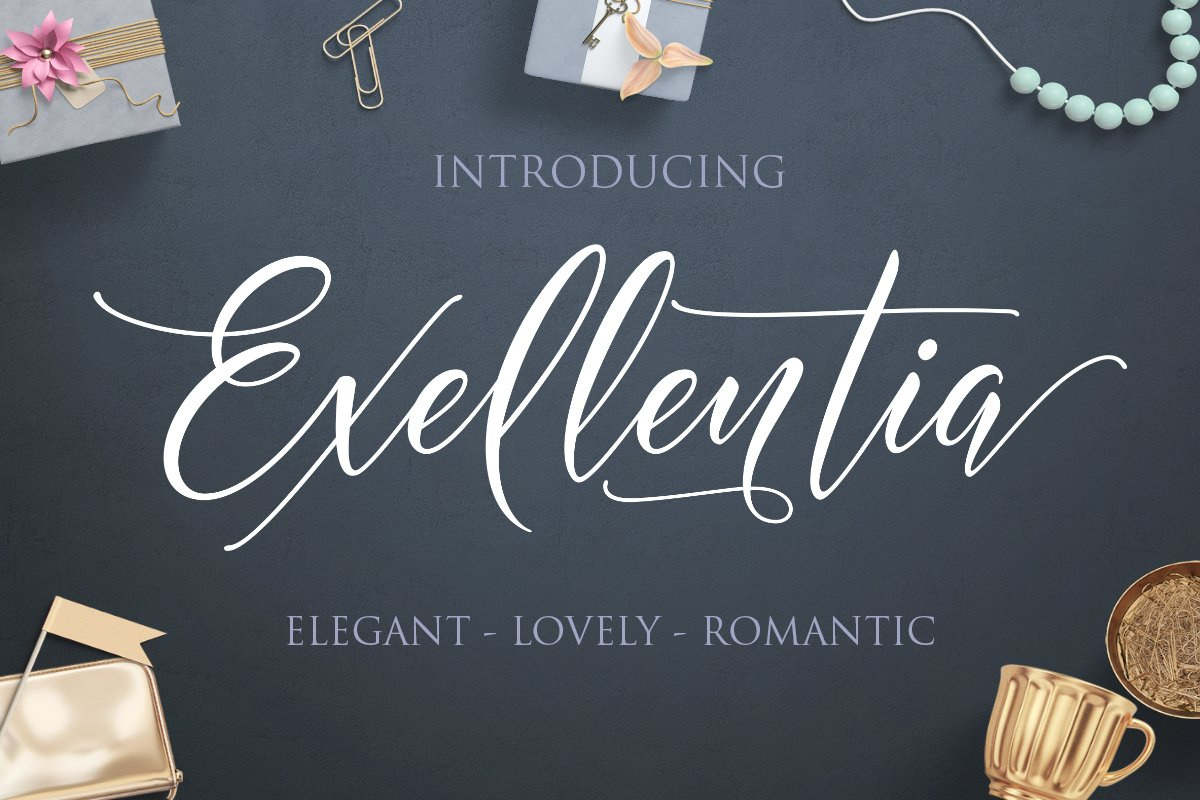
Exellentia Font
Exellentia Font is perfectly suited for luxury brand identities, prestigious award certificates, high-end corporate communications, exclusive event invitations, premium product packaging, distinguished academic publications, elite service branding, sophisticated legal documents, and authoritative institutional materials.
What makes Exellentia Font so exciting is its extraordinary sophistication and uncompromising excellence that instantly establishes the highest level of prestige and authority through every meticulously crafted letterform that embodies the pursuit of perfection. This exceptional typeface represents the pinnacle of typographic achievement with its refined character shapes and flawless proportions that demonstrate the most demanding standards of quality and craftsmanship. The font's distinguished styling and authoritative presence create an atmosphere of ultimate excellence and institutional credibility that resonates with elite audiences who accept nothing less than the finest quality in every aspect of their professional and personal lives. Exellentia Font stands out through its ability to convey supreme quality, institutional authority, and unparalleled excellence, making it perfect for projects that need to establish the highest level of credibility while communicating with audiences who demand absolute perfection and exceptional standards.
The Exellentia Font family includes Light, Regular, Medium, Bold, and Black weights, each maintaining the font's distinctive excellence character while providing design flexibility for various prestigious applications. The family also features refined alternates and institutional elements that enhance the font's authoritative appeal and provide comprehensive solutions for elite design projects requiring supreme quality standards.
When you choose Exellentia Font Free Download, you're selecting a typeface that brings authentic institutional excellence and supreme sophistication to your most important creative projects. This font excels in creating designs that need to convey the highest standards, institutional authority, and uncompromising quality. Its distinguished appearance makes it particularly effective for luxury institutions, elite services, and prestigious organizations that require typography reflecting absolute excellence and supreme standards.
The technical mastery of Exellentia Font includes comprehensive character sets with uppercase and lowercase letters, numerals, punctuation marks, and institutional symbols that maintain the font's excellent character. The font has been engineered to the highest technical standards, ensuring flawless performance across both digital and print applications while preserving the refined details that give it its distinctive excellence character and authoritative appeal.
Whether you're designing elite institutional materials, creating luxury brand communications, developing prestigious award documentation, or crafting designs that require the highest level of sophistication and institutional authority, Exellentia Font delivers the perfect combination of supreme excellence and contemporary functionality that makes your projects exemplify the absolute pinnacle of quality for audiences who demand nothing less than perfection.